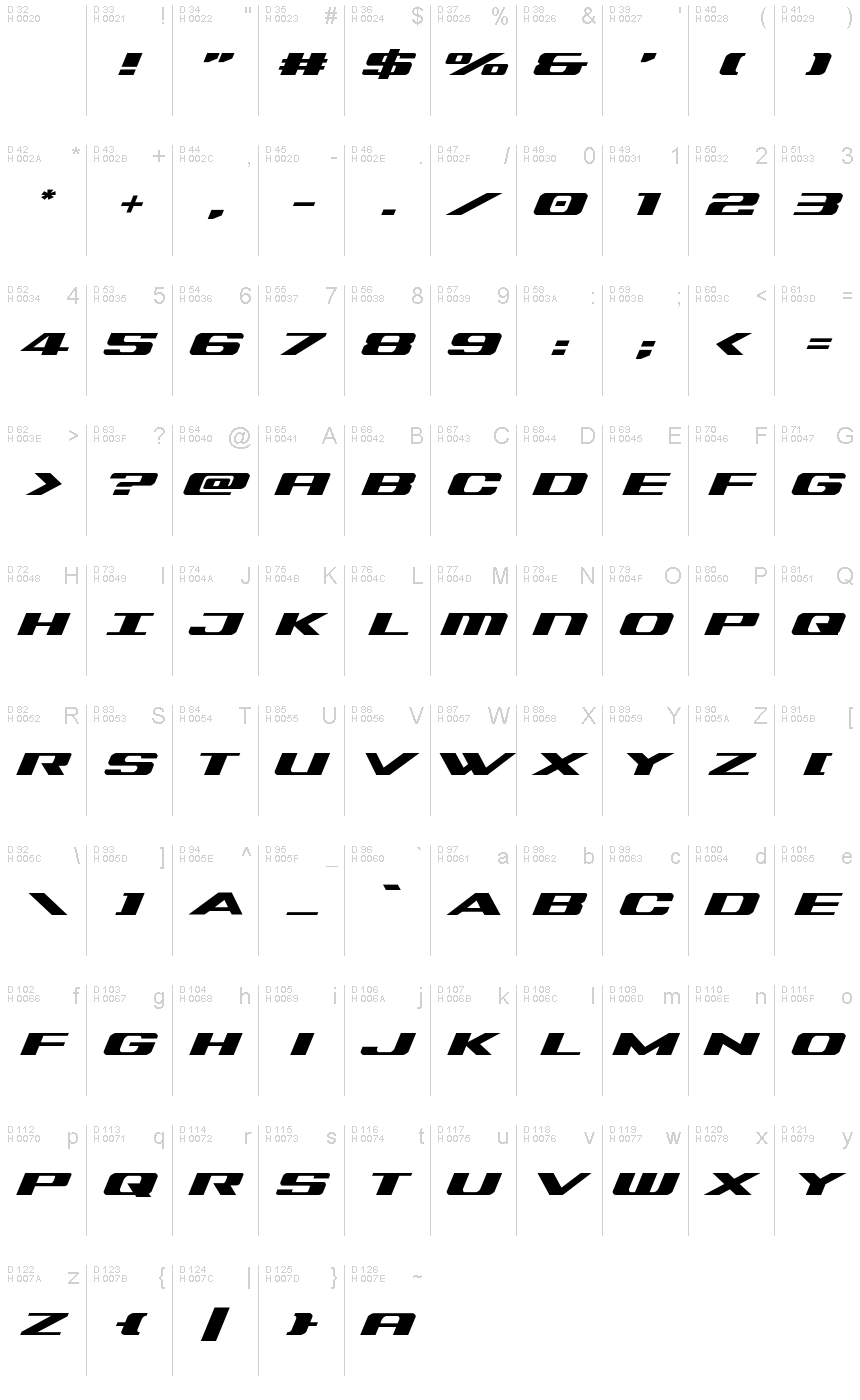
Tigershark Expanded Italic from Iconian Fonts is a free modern display font with broad, aggressively slanted letterforms. Wide horizontal cuts, clipped corners, and compact inner spaces form a fast, engineered silhouette associated with motorsport.
Speed, competition, and machine culture are its clearest territory. The stretched proportions and forward thrust suit racing team branding, sports merchandise, game title screens, and event posters built around motion. In magazine design, it can turn a feature opener or section title into part of the page's action, especially for coverage of cars, esports, or performance technology.